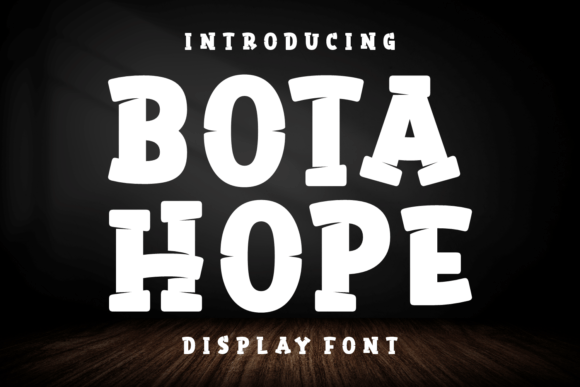
Bota Hope Font
Dive into the captivating charm of Bota Hope, a bold and playful display font that will ignite your creative spirit! Its thick, chunky characters dance across the page, exuding a joyful energy that's sure to make a lasting impression.
Picture the playful exuberance of Bota Hope on your headlines, where each letter leaps off the screen, demanding attention. Its irresistible curves and generous proportions lend a touch of whimsy to posters, adding a playful spark to any message.
Imagine the impact of Bota Hope on your t-shirts, where its chunky silhouette transforms ordinary garments into canvases of creativity. Let your words take on a life of their own, standing out in a crowd with an unforgettable personality.
Bota Hope isn't just a font; it's a gateway to endless design possibilities. Its versatility knows no bounds, empowering you to create stunning typography for any project. Let your imagination soar, and watch as Bota Hope brings your ideas to life with its captivating presence.